Felices Para Siempre
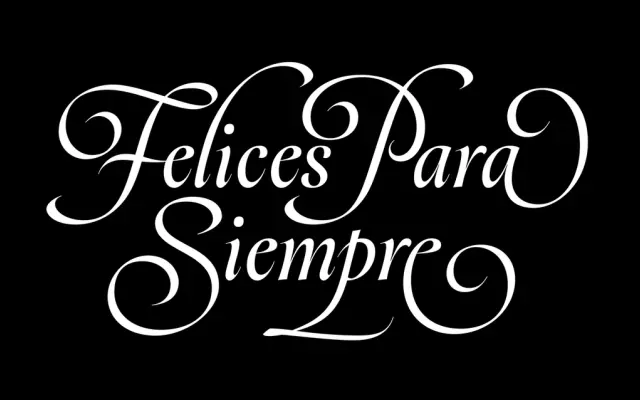
Custom title lettering and credit typography designed for a low-budget short film, built on Fang Italic with bespoke capitals and swashes.
Drawn for director Jonathan Herzberg's short film, the title lettering takes Fang Italic as a structural base before introducing custom capitals and decorative swashes suited to the film's tone of distorted romance. Credit slides pair the lettering with hand-scanned flowers collected around New Orleans, the analogue texture keeping the floral motif from reading as sentimental. The project marks the first official use of Fang Roman and Italic in a public context.
Hand-drawn custom lettering with swashes and bespoke capitals, built on the Fang Italic skeleton; categorised as display due to its bespoke, one-off illustrative nature for a film title.